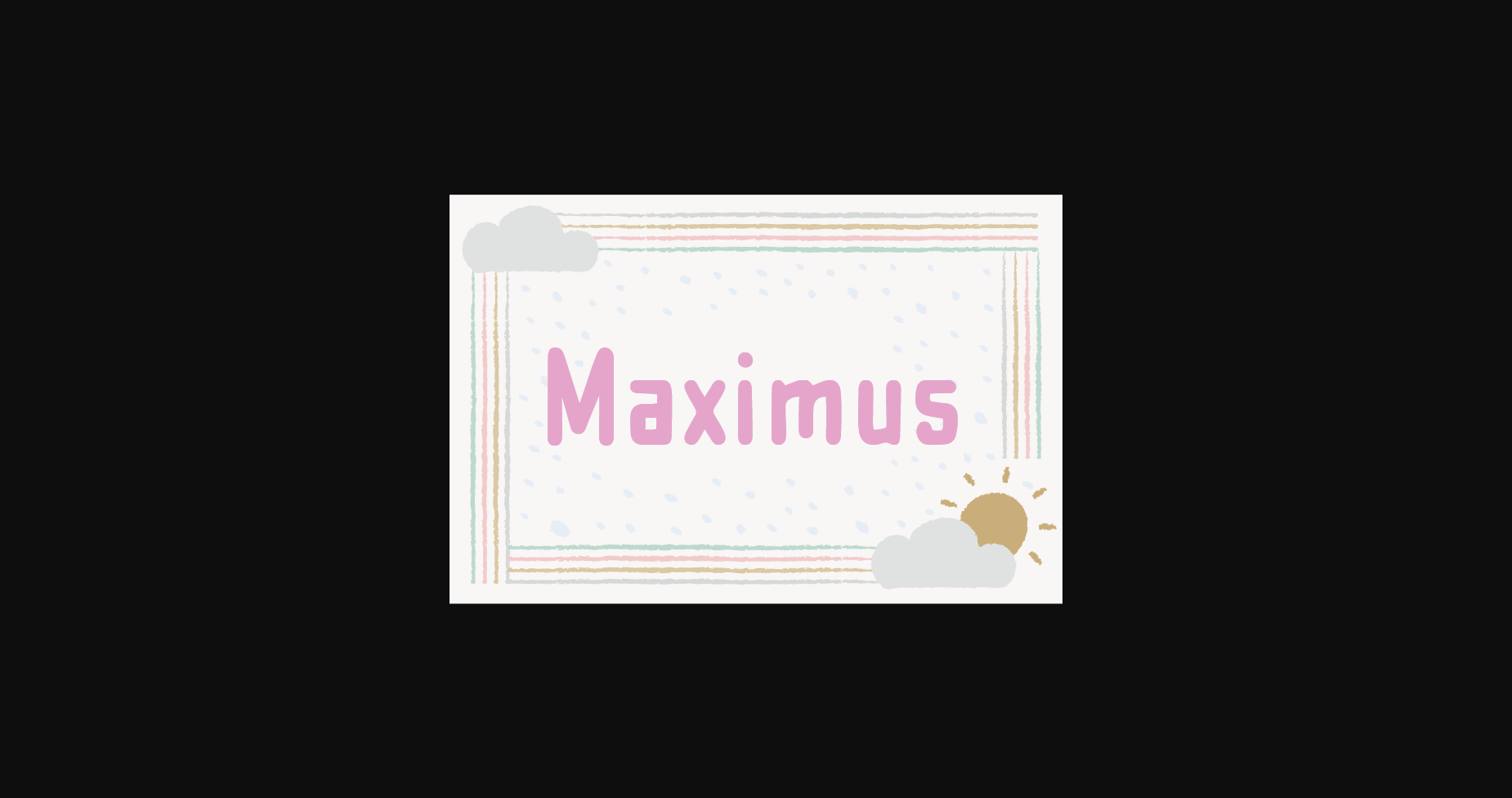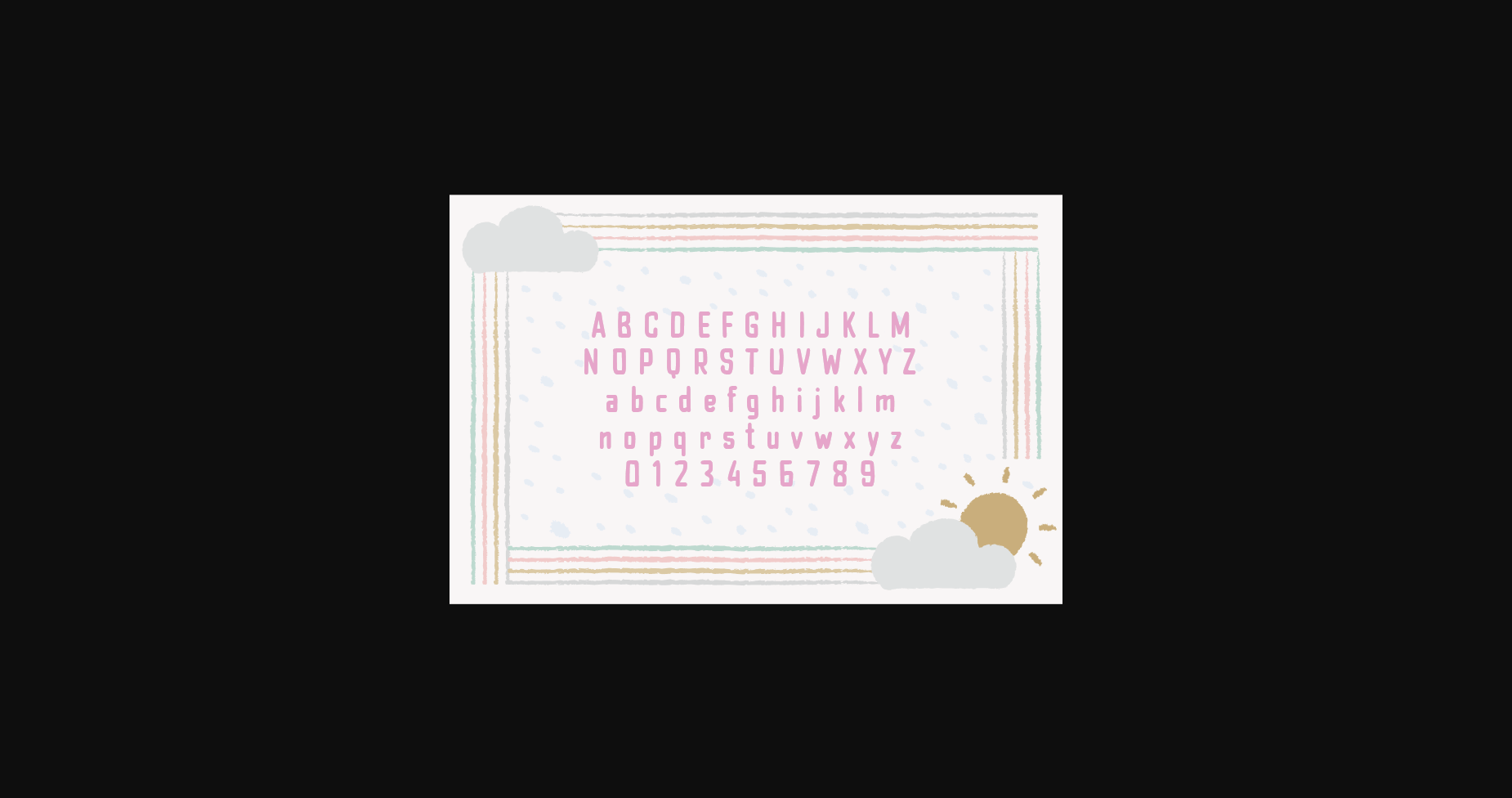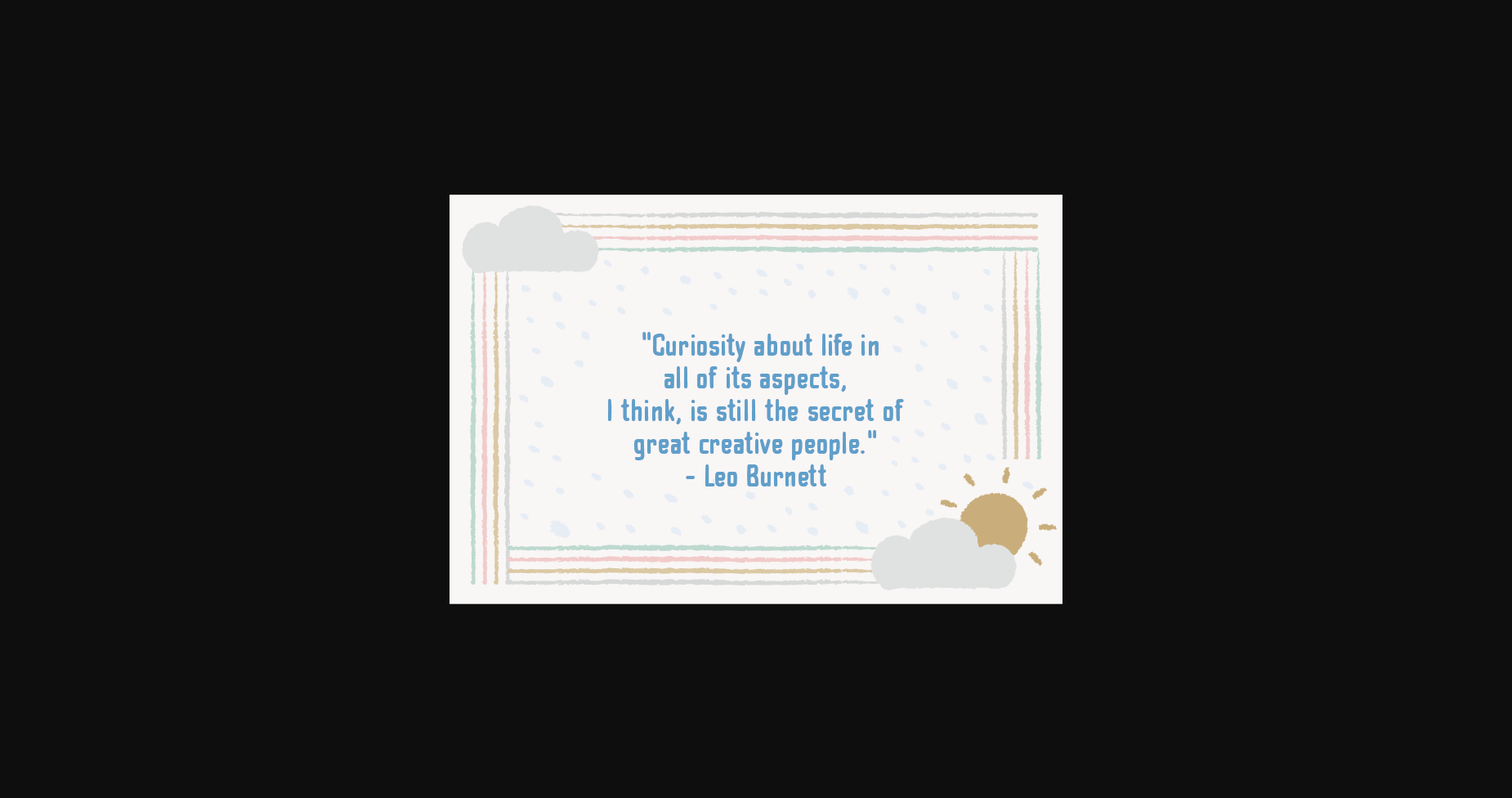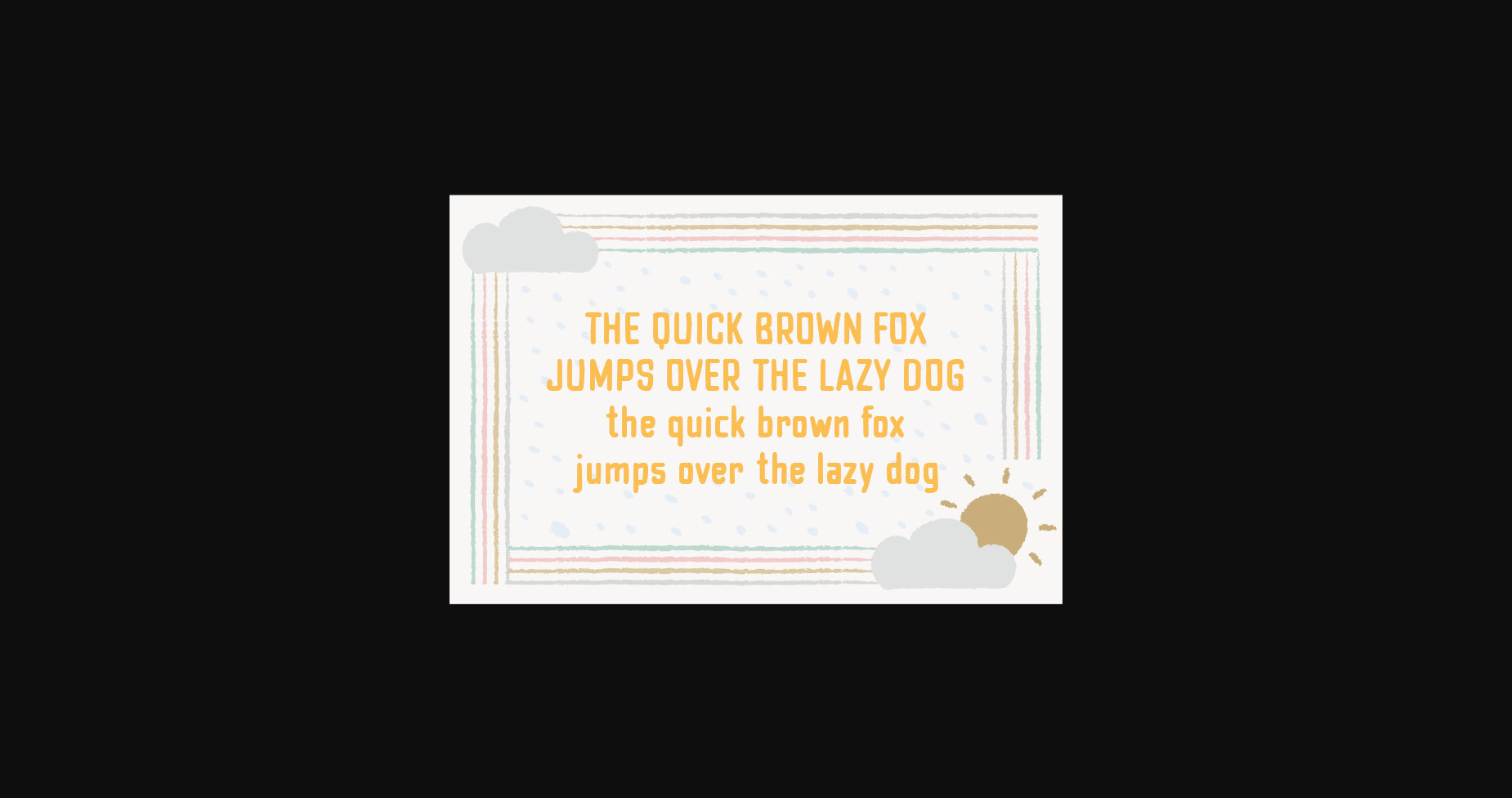
Maximus is a natural sans serif font made without changing a single node in each character’s indentation. This makes this font very interesting and unique. Perfect for quotes, notes, tees, and any product design.